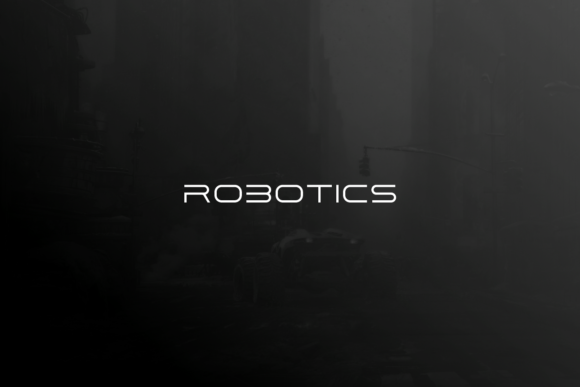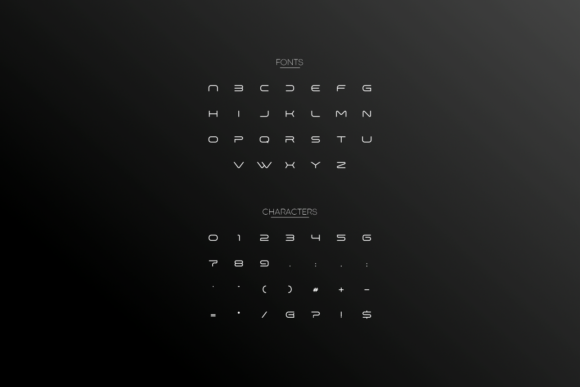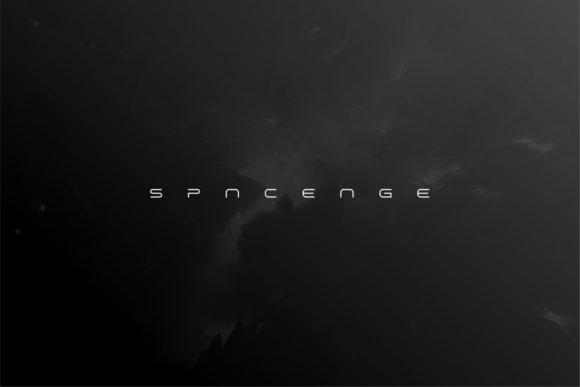
Bamcers Font: Elevate Your Designs with a Modern, Elegant, and Futuristic Touch
In the world of design, typography plays a crucial role in conveying the message and aesthetic of a project. With numerous fonts available, finding the perfect one that adds a unique touch can be challenging. This is where Bamcers Font comes into play, a modern, elegant, and futuristic font designed to elevate your designs to the next level. In this article, we’ll explore the features and benefits of Bamcers Font, and why it’s an ideal choice for designers and crafters.
What is Bamcers Font?
Bamcers Font is a contemporary typeface that boasts a sophisticated concept and elegant shape, making it perfect for future technology designs. Its modern and futuristic look sets it apart from traditional fonts, providing a unique touch to any project. Whether you’re working on web designs, business cards, or any other creative endeavor, Bamcers Font is an excellent choice.
Key Features of Bamcers Font
- Modern and Futuristic Design: Bamcers Font features a sleek and contemporary design that will give your projects a cutting-edge look.
- Elegant Shape: The font’s elegant shape makes it perfect for designs that require a touch of sophistication.
- Versatility: Bamcers Font can be used for a wide range of projects, including web designs, business cards, brochures, and more.
- Unique Touch: The font’s distinctive design ensures that your projects stand out from the crowd.
Benefits of Using Bamcers Font
Using Bamcers Font in your designs offers several benefits, including:
- Enhanced Visual Appeal: The font’s modern and elegant design will elevate the visual appeal of your projects.
- Improved Readability: Bamcers Font is designed to be clear and readable, making it perfect for body text and headings.
- Time-Saving: With Bamcers Font, you can create professional-looking designs quickly and efficiently.
Who Can Benefit from Bamcers Font?
Bamcers Font is an excellent choice for:
- Graphic Designers: Looking for a modern and elegant font to add a unique touch to their designs.
- Web Designers: Seeking a font that will enhance the visual appeal of their websites.
- Crafters: Creating handmade products, such as cards, invitations, and DIY projects.
- Marketing Professionals: Needing a font that will help their brand stand out in a crowded market.
Tips for Using Bamcers Font Effectively
To get the most out of Bamcers Font, consider the following tips:
- Pair with Complementary Fonts: Combine Bamcers Font with other fonts to create a unique and harmonious typography.
- Experiment with Colors: Try different color schemes to find the perfect match for your design.
- Use for Headings and Titles: Take advantage of the font’s elegant design by using it for headings and titles.
Bamcers Font is a versatile and elegant typeface that can elevate your designs to new heights. Its modern and futuristic look makes it perfect for a wide range of projects, from web designs to business cards. With its sophisticated concept and elegant shape, Bamcers Font is an excellent choice for designers and crafters looking to add a unique touch to their work. By incorporating Bamcers Font into your design workflow, you’ll be able to create stunning and professional-looking projects that stand out from the crowd.